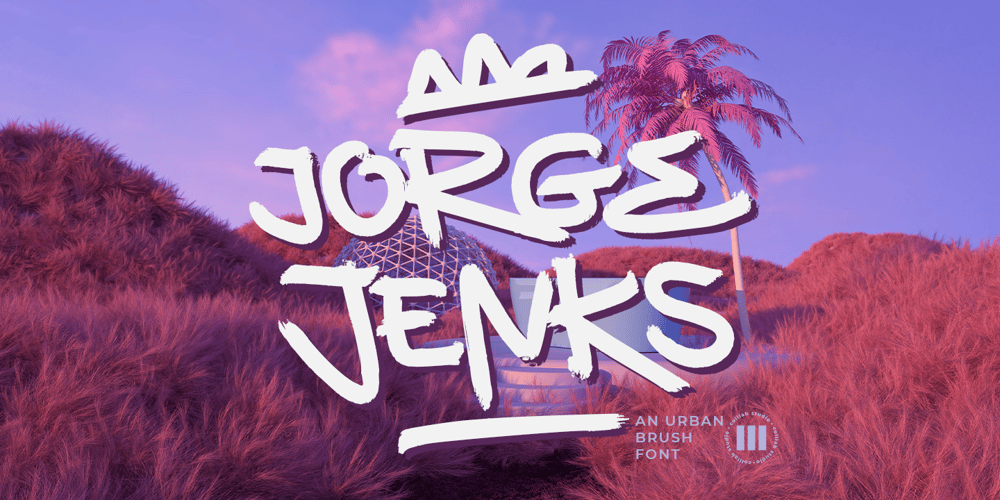
Jorge Jenks
Jorge Jenks font
Jorge Jenks Font Family was designed by Muh. Aswar, Awaluddin Syarif and published by Colllab Studio. Jorge Jenks contains 1 styles and family package options. “Hi there, thank you for passing by. Colllab Studio is here. We crafted best collection of typefaces in a variety of styles to keep you covered for any project that comes your way!If you are looking for a font that is perfect to make your designs look hip and fresh, go no further. Jorge Jenks has got it all. It’s simple, organic, versatile, and super modern – but not too futuristic. It will set you above the rest of the market.Jorge Jenks is an urban brush font reflecting the urban freedom and organic flow of city life. it has strokes that are made of multiple connected nodes and his forms are unique and imperfect. This makes him a great match for both display and text typography, as well as logo design.A Million Thankswww.colllabstudio.com